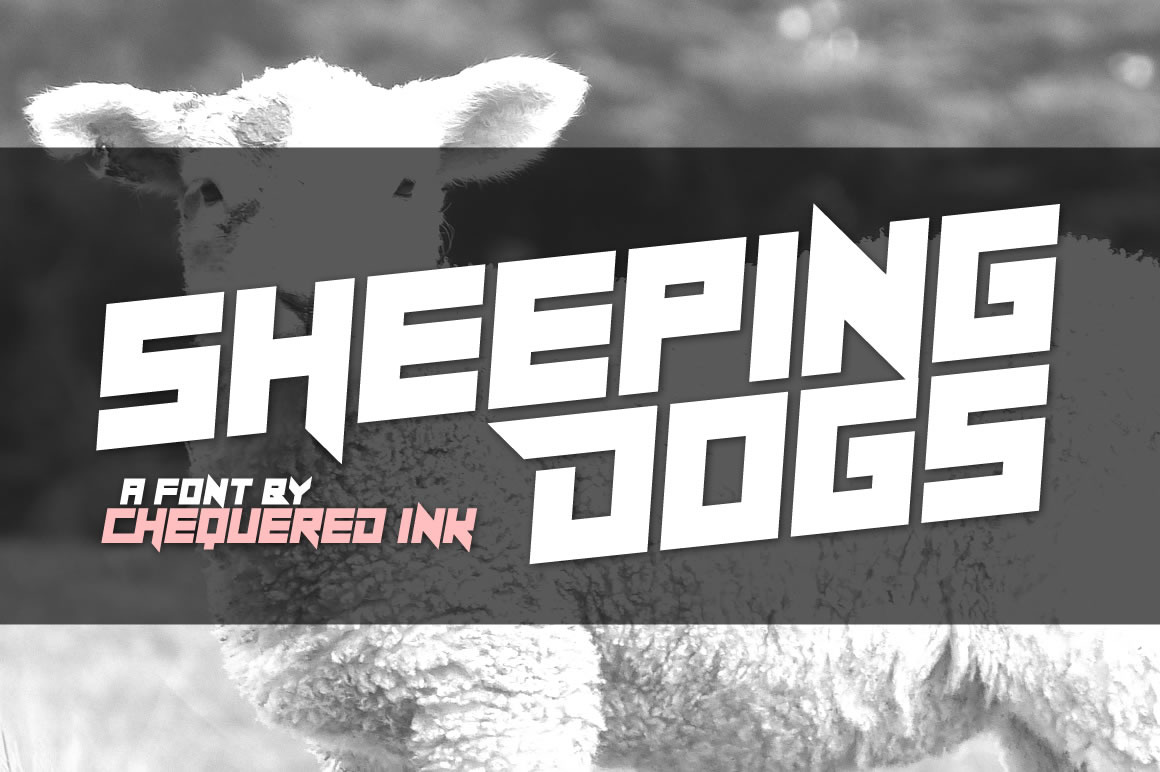
Sheeping Dogs Font
Sheeping Dogs is a techno-style font, featuring a basic Latin character set with capital letters only. Perfect for use on gaming networks.